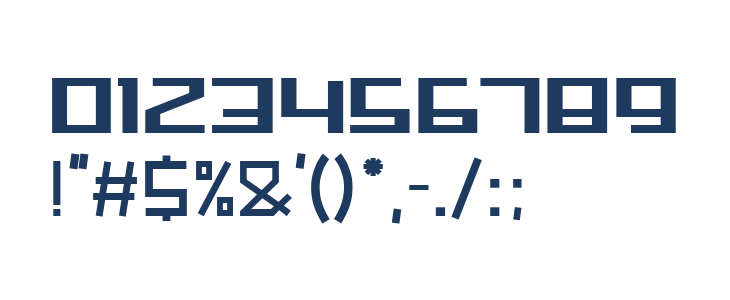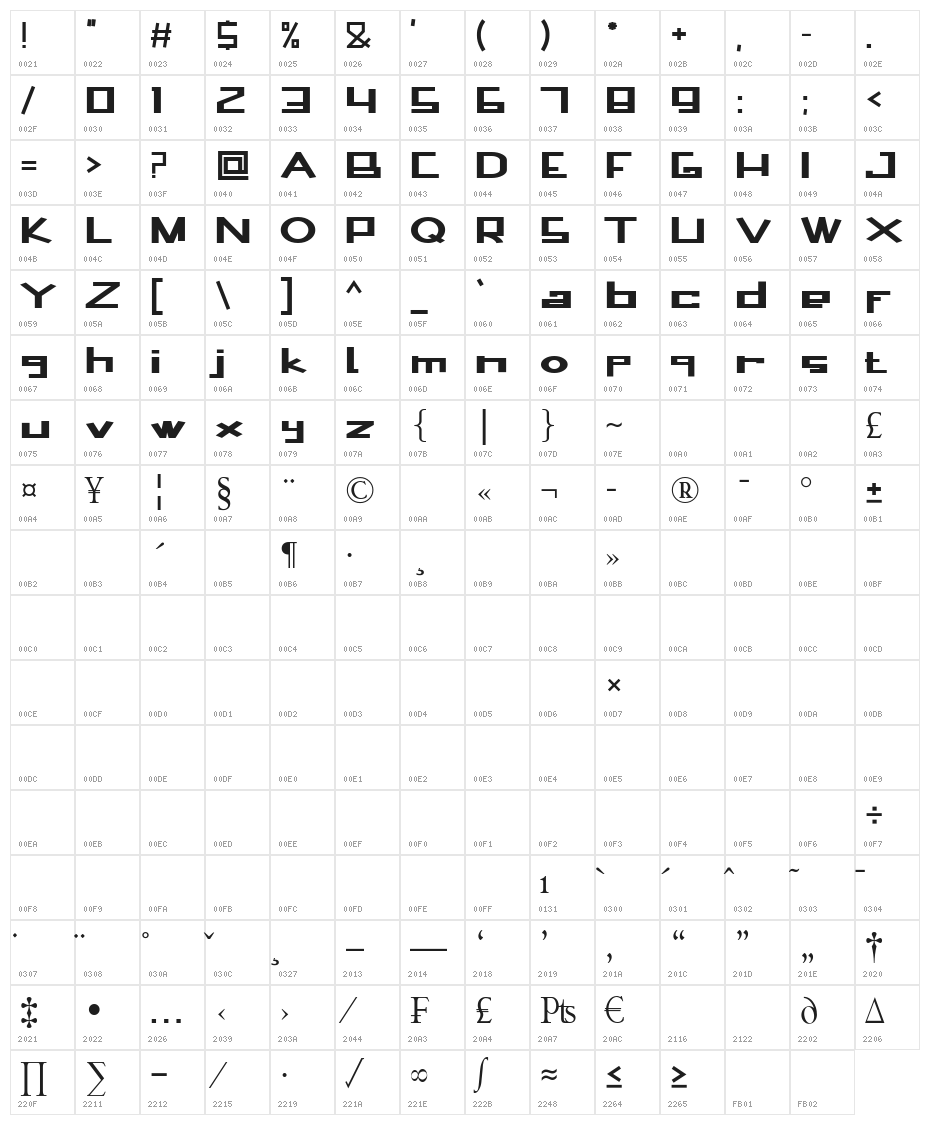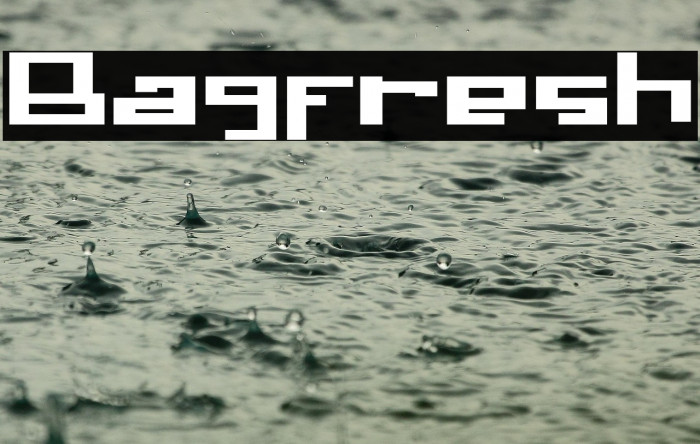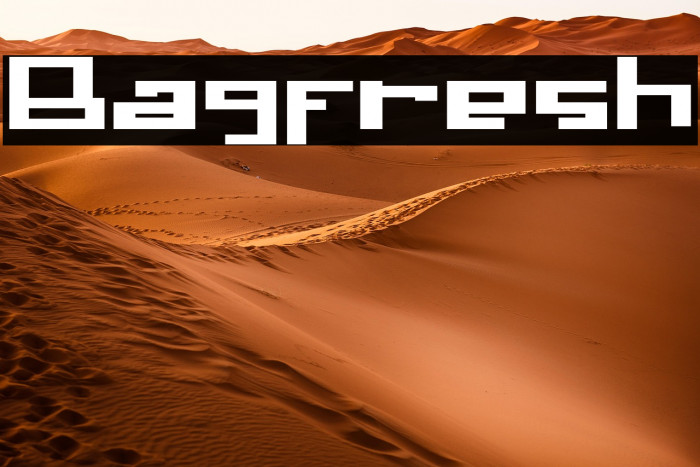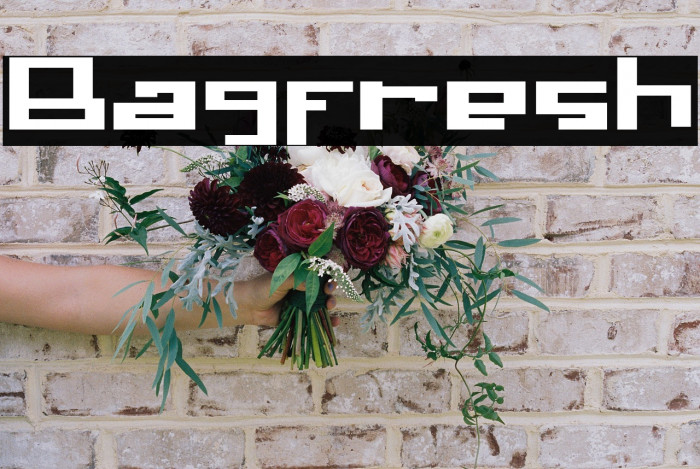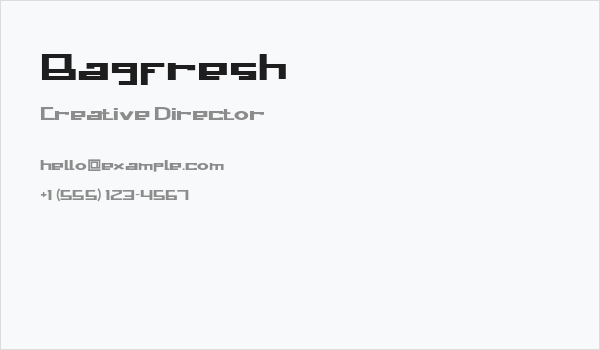
Bagfresh Font
Bagfresh Description
This font features a bold, geometric design with a modern and futuristic feel. The characters are constructed with sharp angles and straight lines, giving it a distinctive, edgy appearance. The uppercase and lowercase letters maintain a consistent style, with the lowercase letters slightly more compact. Numbers and special characters follow the same geometric pattern, ensuring uniformity across all glyphs. The font's boldness and unique style make it stand out, suitable for projects that require a strong visual impact.
A bold, geometric font with a modern, futuristic style from Uncategorized fonts.
- Proposed Projects: Ideal for branding, posters, video game graphics, and sci-fi themed designs.